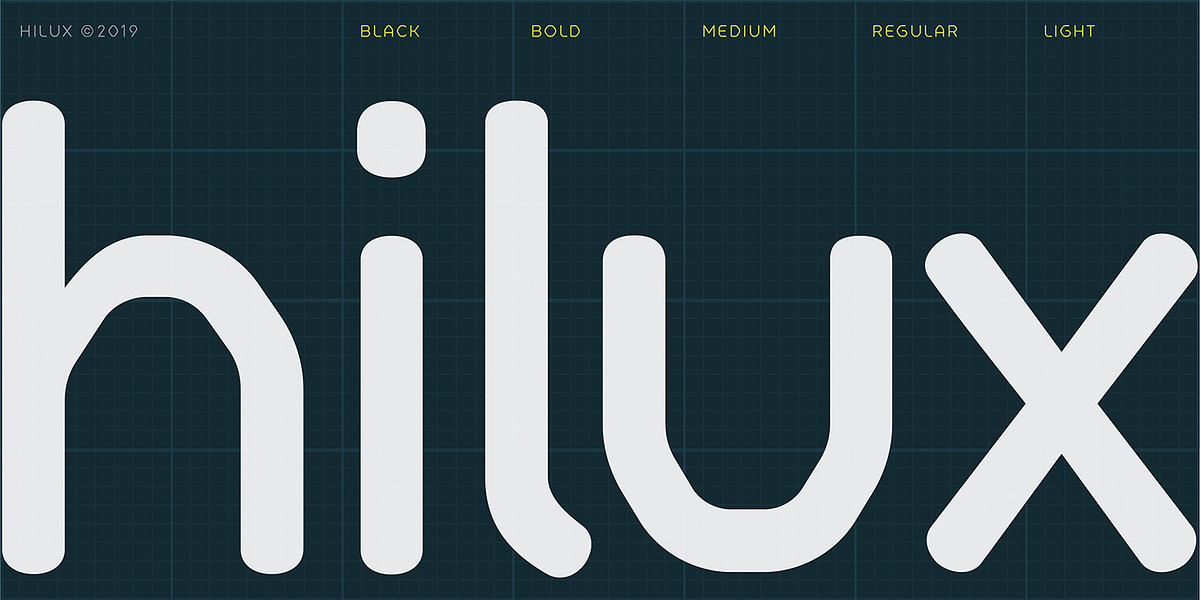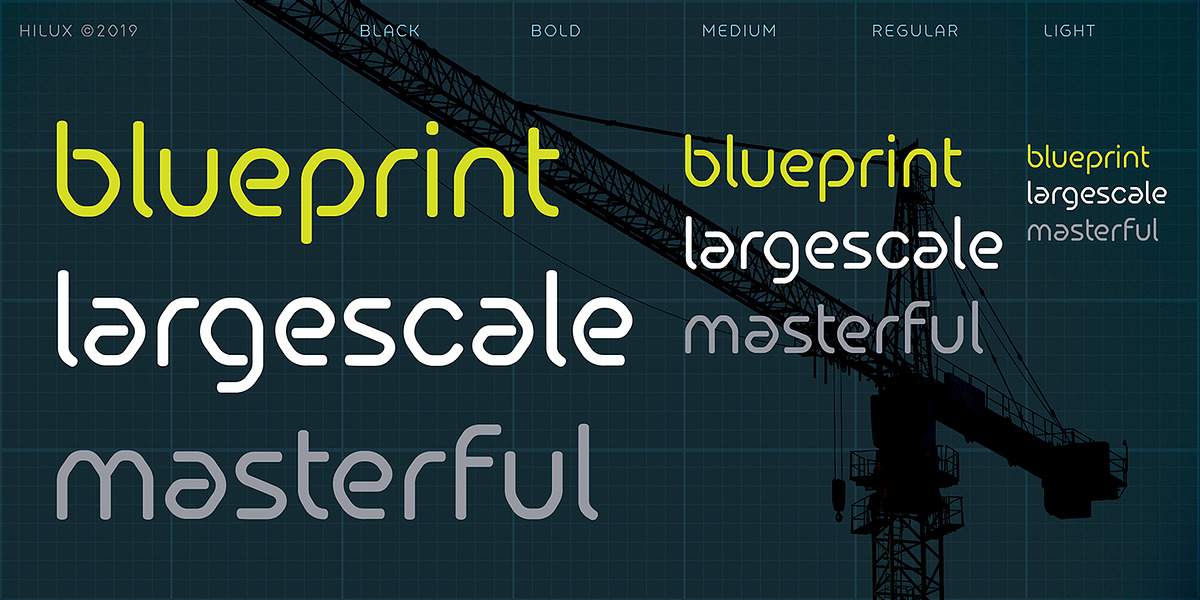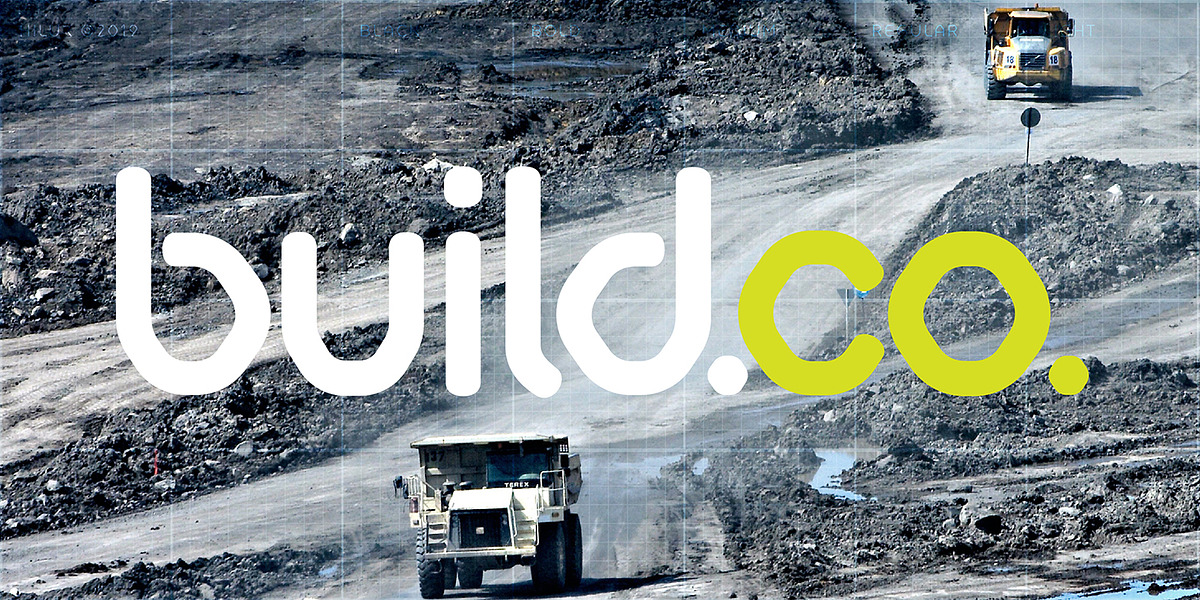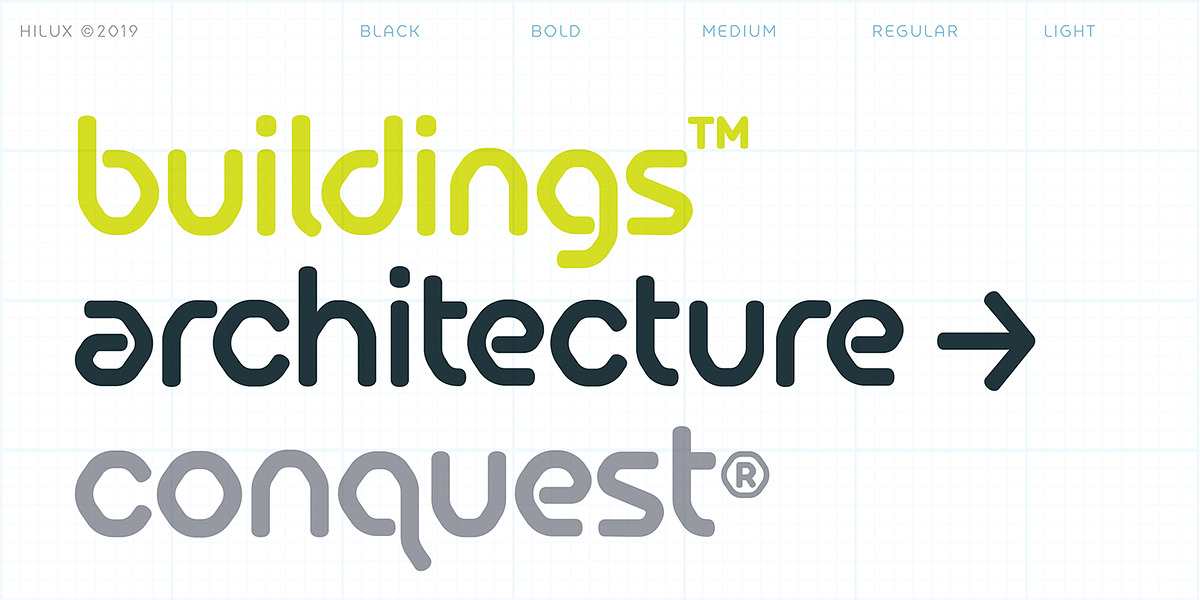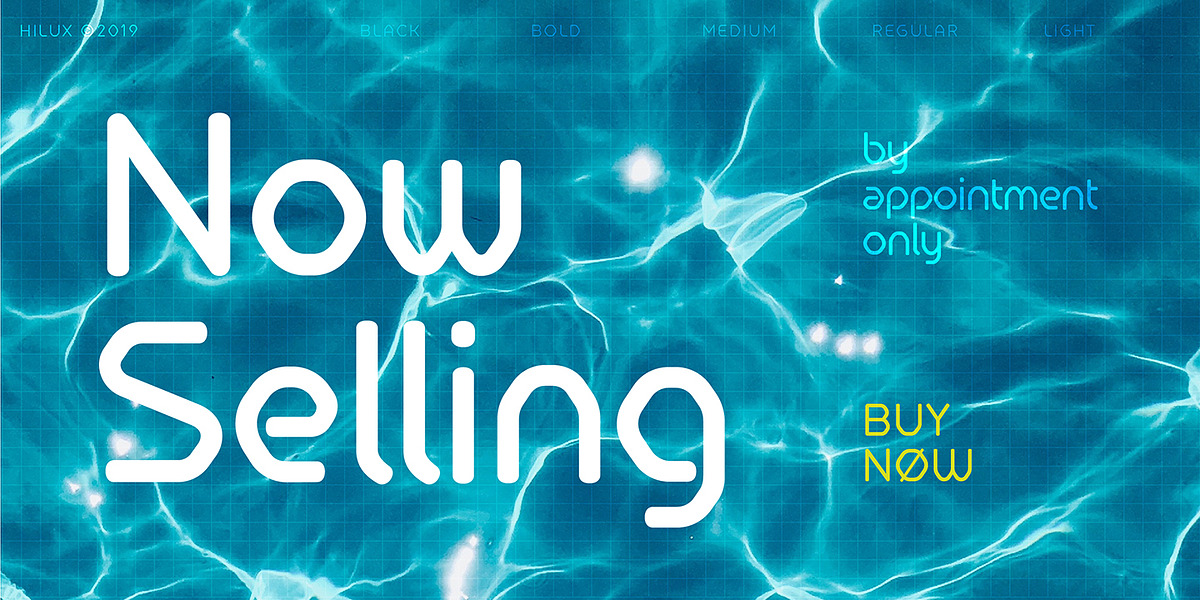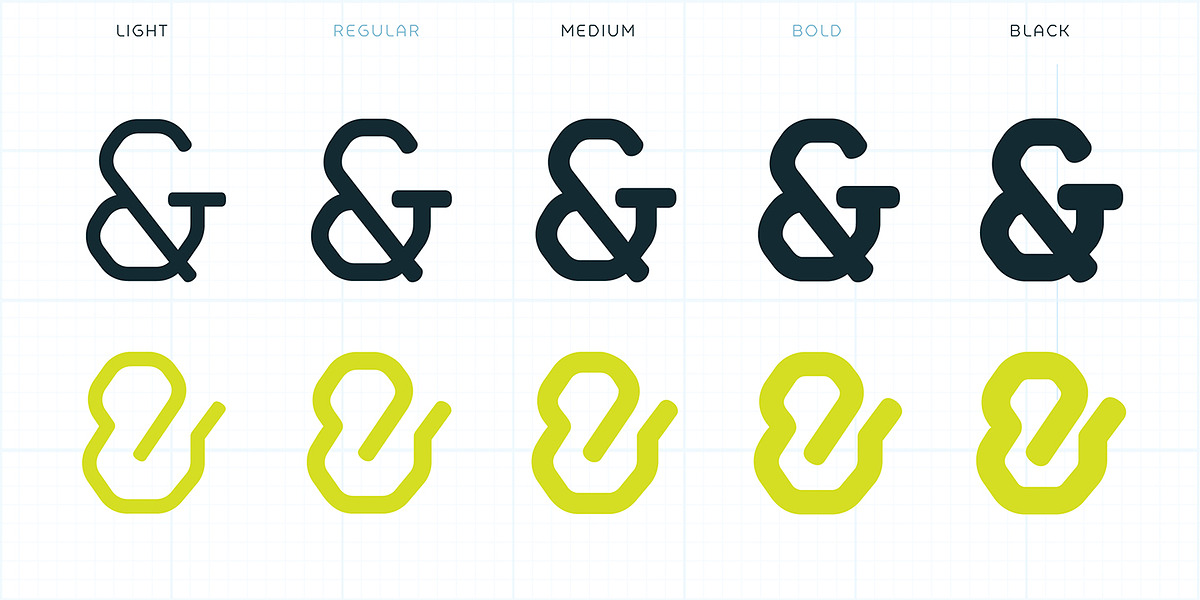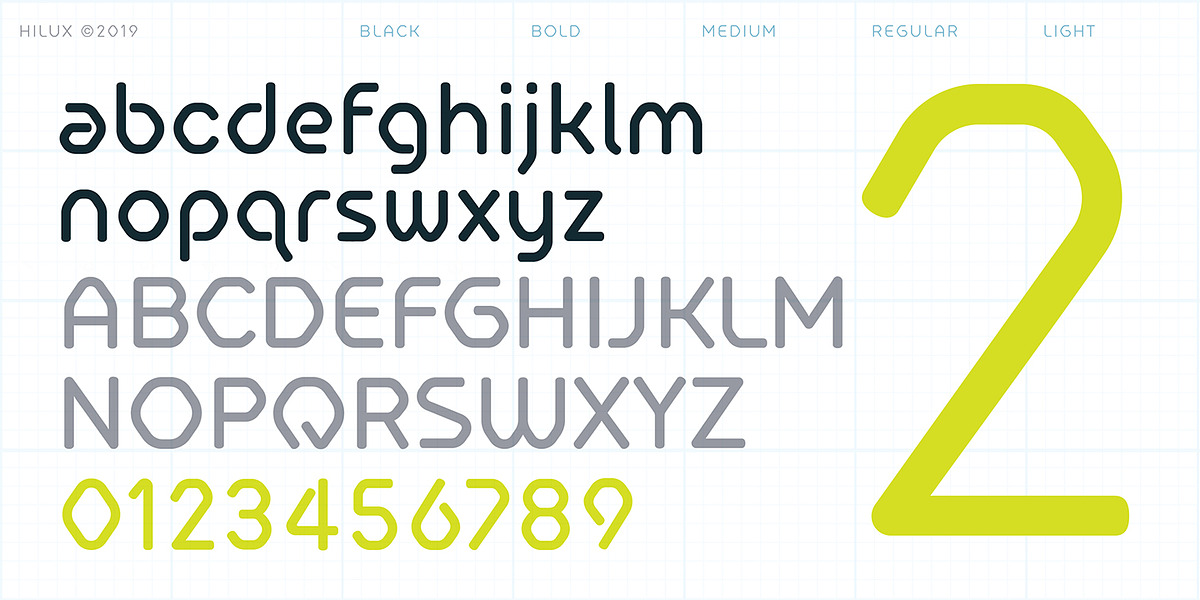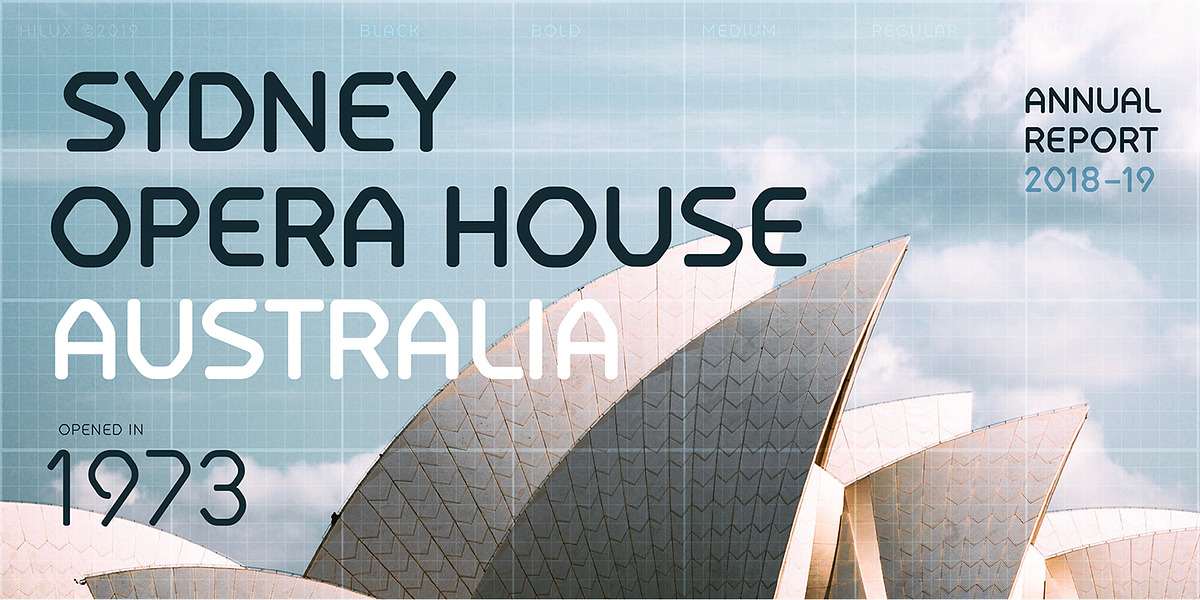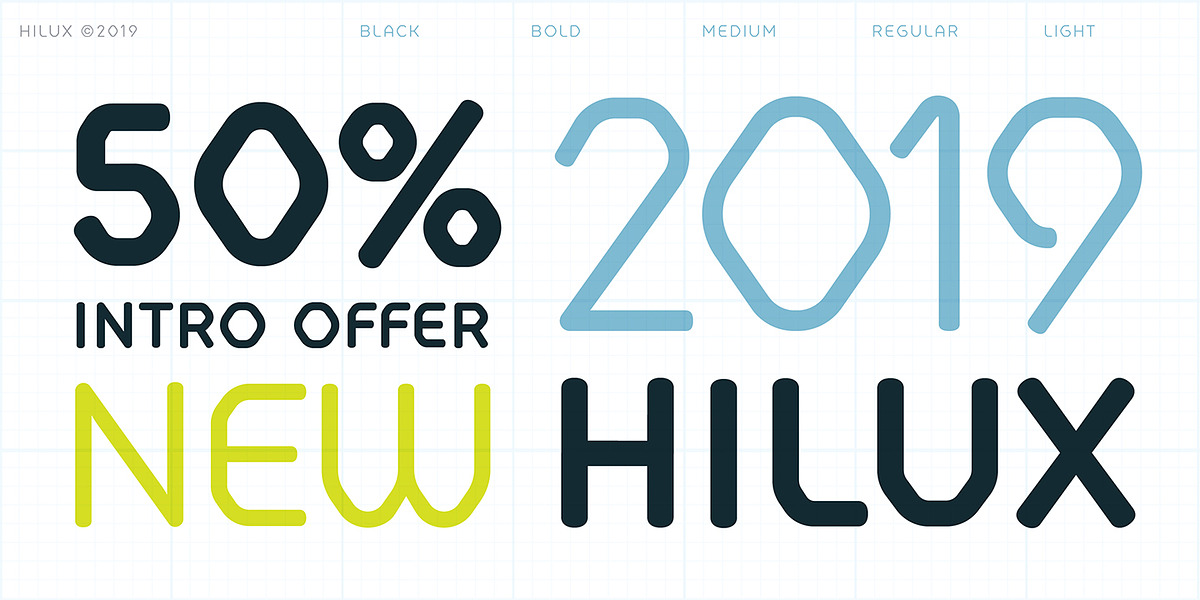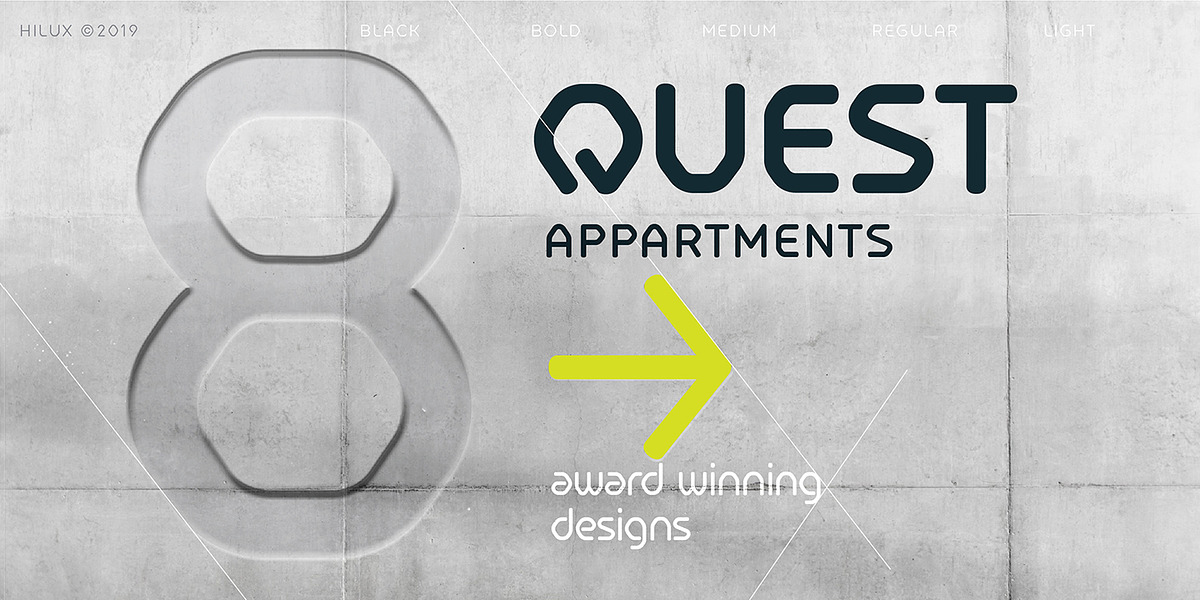
Hilux
Hilux is a modern geometric sans serif font characterized by its rounded forms and lack of spurs. Designed with five weights, it is suitable for both headlines and body copy. The font's name, short for 'Highrise Luxury,' reflects its sophisticated and contemporary aesthetic.